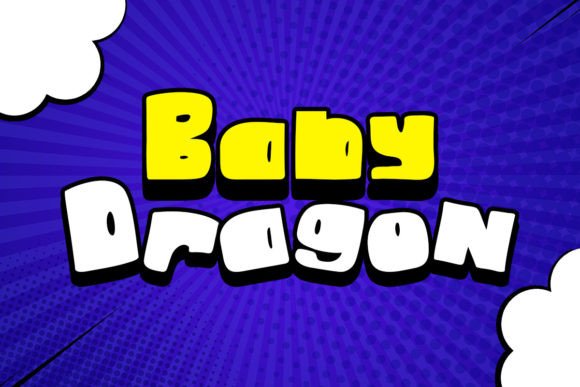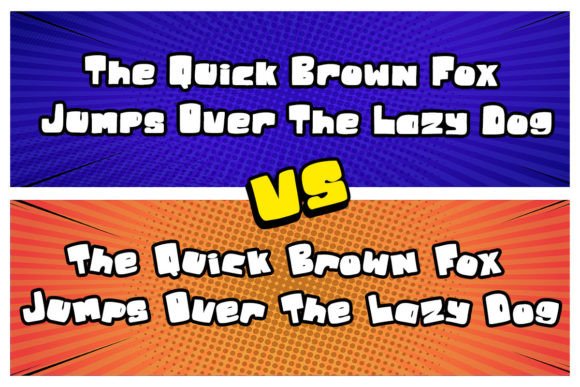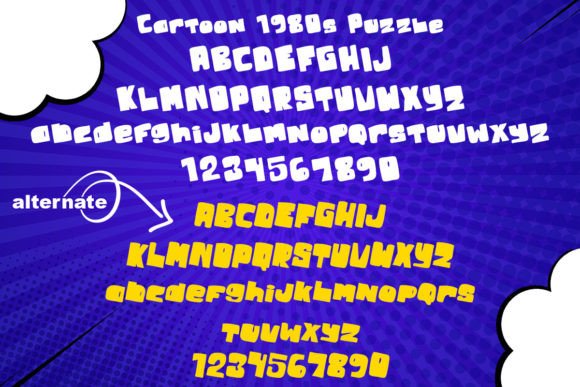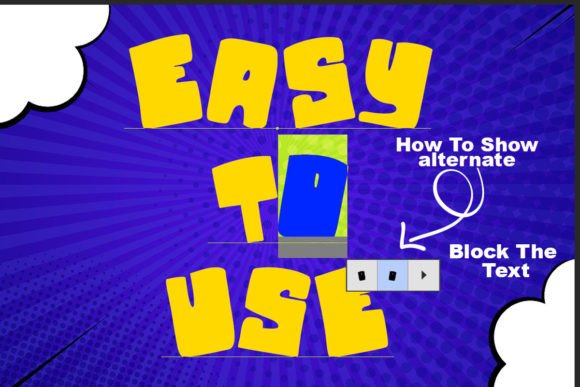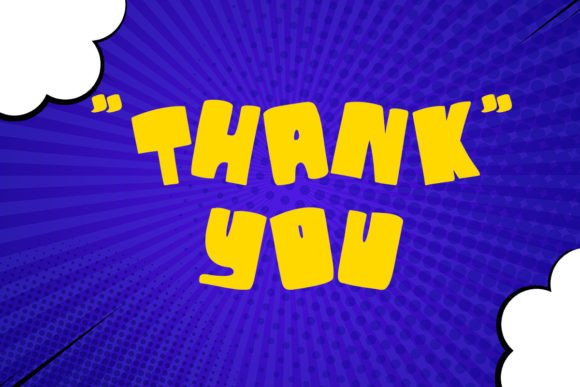
The Nostalgic Charm of Cartoon 1980s Font
Who among us hasn’t felt a rush of creative energy as a child, rummaging through a box of crayons, markers, and paint, bringing their imagination to life on a blank sheet of paper? The memories of colorful doodles, scribbles, and illustrations are etched in our minds, a testament to the joy of self-expression. Fast forward to adulthood, and the desire to recapture that same sense of creativity and playfulness remains strong.
Enter the Cartoon 1980s Font, a font that embodies the carefree spirit of a bygone era. Designed to add a touch of whimsy and fun to any project, this font is perfect for crafting, digital design, presentations, and greeting cards. Whether you’re a seasoned designer or a hobbyist, the Cartoon 1980s Font is a valuable addition to your toolkit, offering endless possibilities for creative expression.
CARTOON 1980S FONT FEATURES
- Font Family: Cartoon 1980s Font is a digital font family designed to resemble the aesthetic of 1980s cartoons.
- Unique Characteristics: The font features bold, colorful, and playful letterforms with exaggerated lines, curves, and shapes, reminiscent of classic 1980s cartoons.
- Style Options: The font family includes various style options, such as Regular, Italic, Bold, and Bold Italic, to provide flexibility and versatility in design applications.
Designer Review: Cartoon 1980s Font
When I first laid eyes on the Cartoon 1980s Font, I couldn’t help but feel a sense of nostalgia. The font’s bold, colorful aesthetic immediately transported me back to the radical era of neon lights and big hair. Here are some things that really work well for this font:
- ✨ Its playful, retro vibe is perfect for creating eye-catching headlines and titles.
- ✨ The font’s bold weight makes it easy to read, even at smaller sizes.
- ✨ The color palette is incredibly versatile, allowing for a wide range of design possibilities.
However, there are a few limitations that I think are worth mentioning:
- ⚠️ The font may be too over-the-top for more serious or formal designs.
- ⚠️ Some of the letterforms may be difficult to read at very small sizes.
- ⚠️ The font’s nostalgia factor may not be for everyone.
Overall, I think the Cartoon 1980s Font is a great addition to any designer’s toolkit. While it may not be the best fit for every project, its unique aesthetic and versatility make it a great choice for designers looking to add some personality to their work.
The Cartoon 1980s Font is ideal for creating retro-themed designs, such as:
– Retro video game graphics
– 80s-inspired posters
– Nostalgic social media graphics
– Cartoon-style infographics
To get the most out of the Cartoon 1980s Font, try combining it with other retro-themed elements, such as:
– Bright, bold colors
– Pixel art graphics
– Distressed textures
– Neon lights
Alternatives to Cartoon 1980s Font
Comic Sans MS is a sans-serif font designed by Vincent Connare in 1994. It is often used in informal contexts such as invitations, posters, and children’s materials. When to use: This font is suitable for casual, friendly, and approachable designs. It is more rounded and cursive than Cartoon 1980s Font, giving it a softer and more playful feel.
Pacifico is a script font designed by Vernon Adams in 2011. It is often used in headings, titles, and quotes. When to use: This font is suitable for designs that require a touch of elegance and sophistication. It is more refined and modern than Cartoon 1980s Font, with a more fluid and cursive feel.
Great Vibes is a script font designed by Handmade Fonts in 2012. It is often used in headings, titles, and quotes. When to use: This font is suitable for designs that require a sense of adventure and playfulness. It is more stylized and handwritten than Cartoon 1980s Font, with a more dynamic and expressive feel.
How can I customize the Cartoon 1980s Font to fit my design needs?
You can customize the Cartoon 1980s Font by adjusting its size, color, and other stylistic elements using design software such as Adobe Illustrator or Photoshop. You can also experiment with different font combinations and layering techniques to achieve the desired look. Additionally, some font editors may allow you to modify the font’s letterforms or add custom effects.